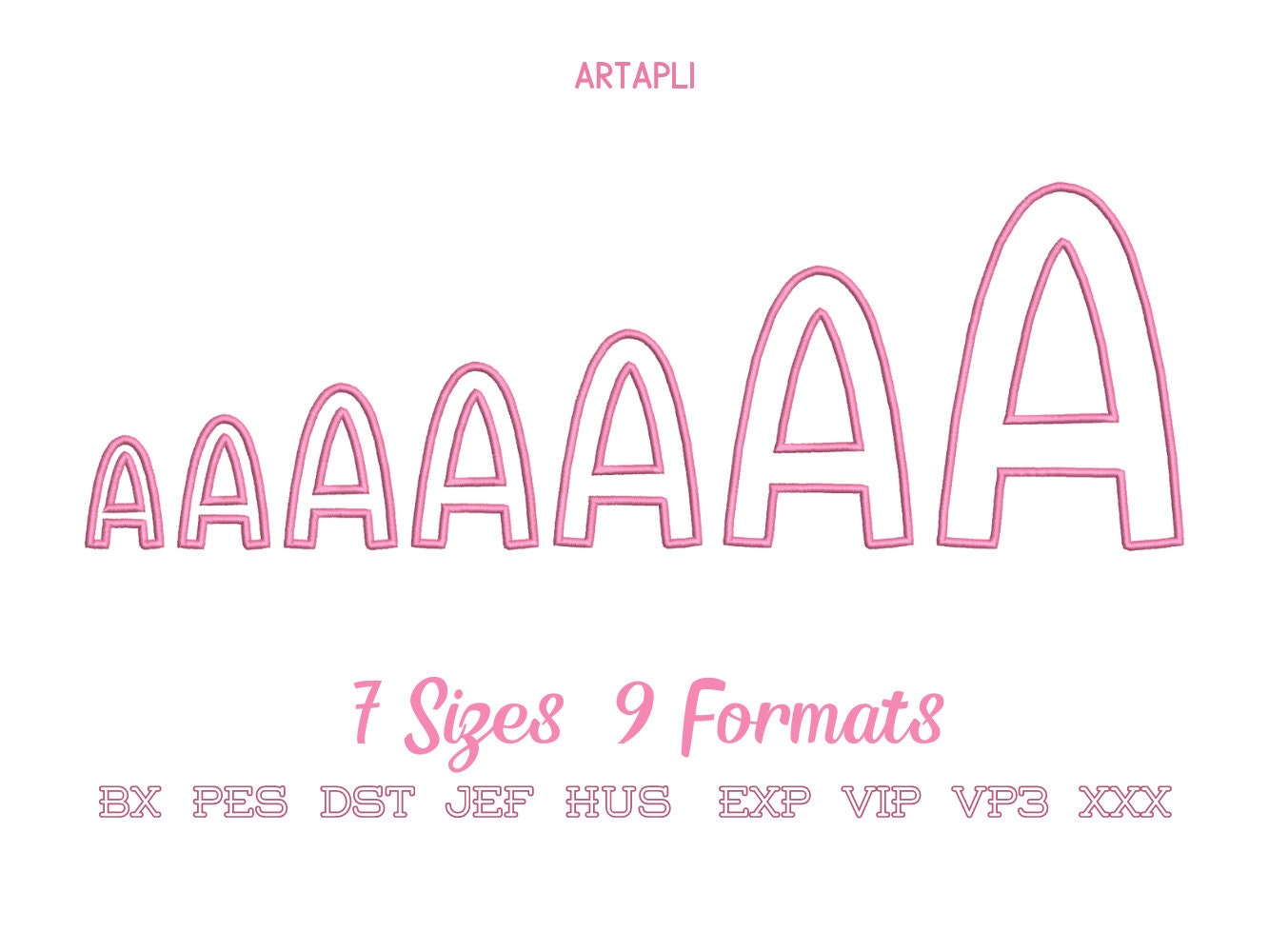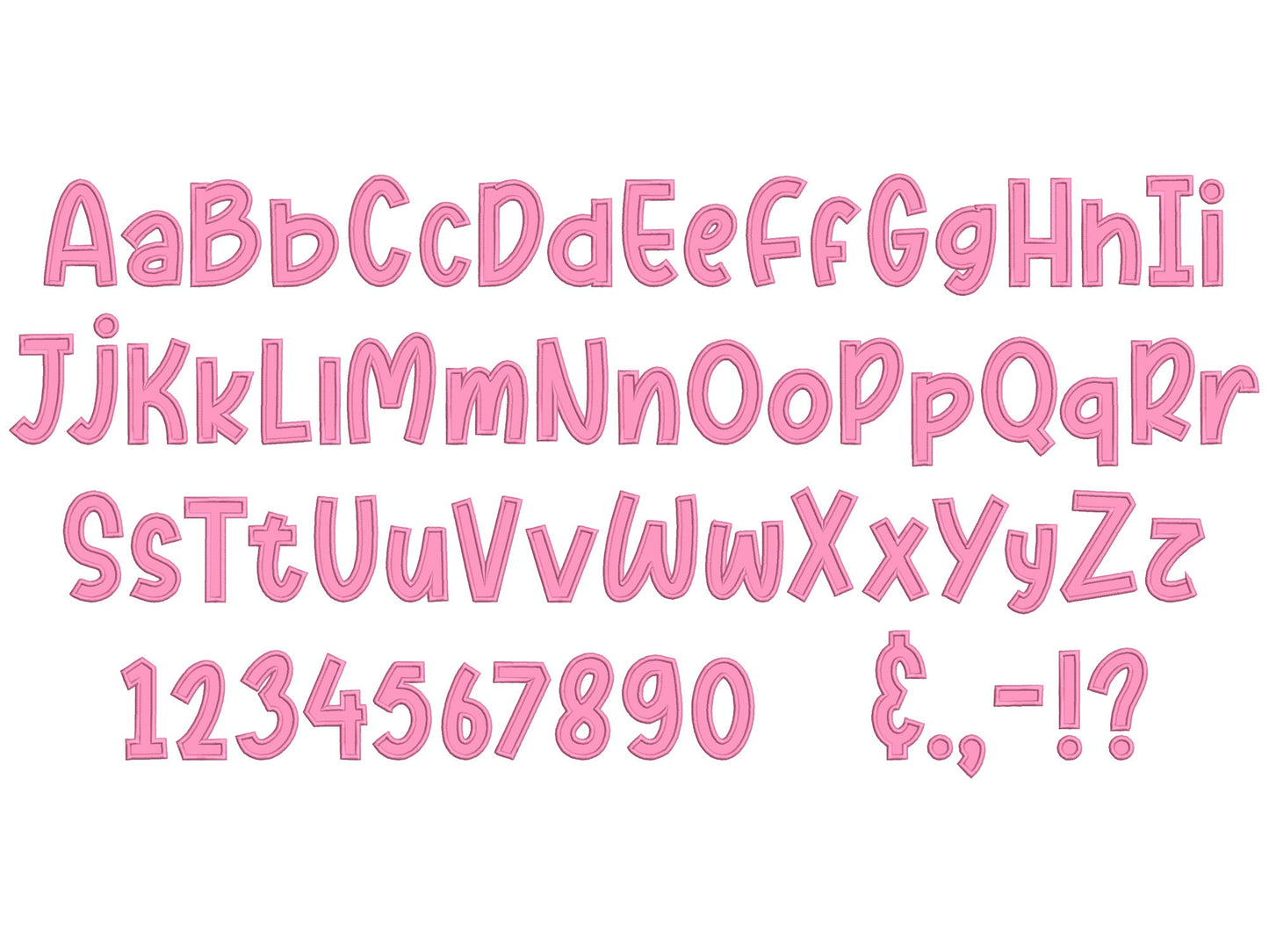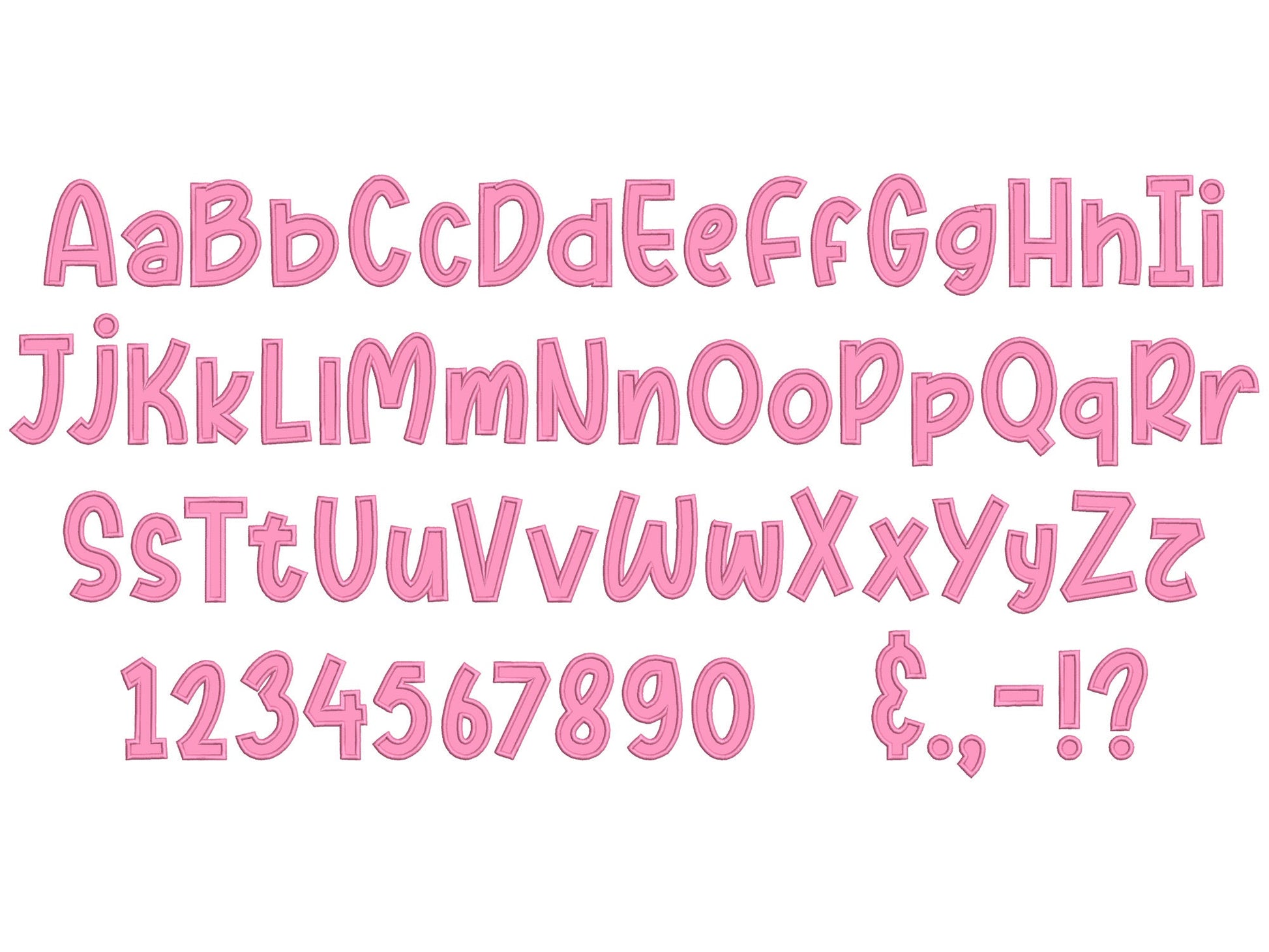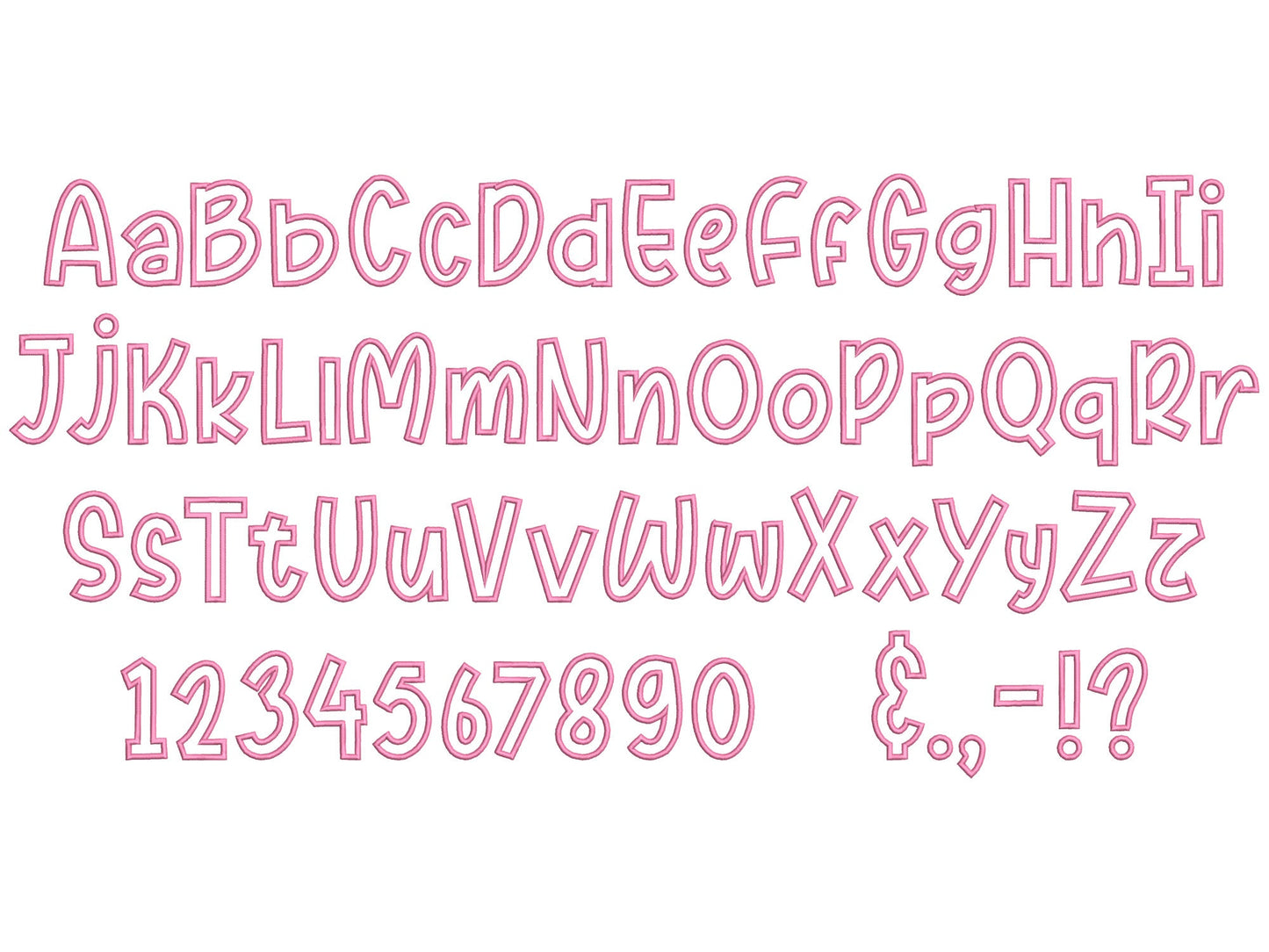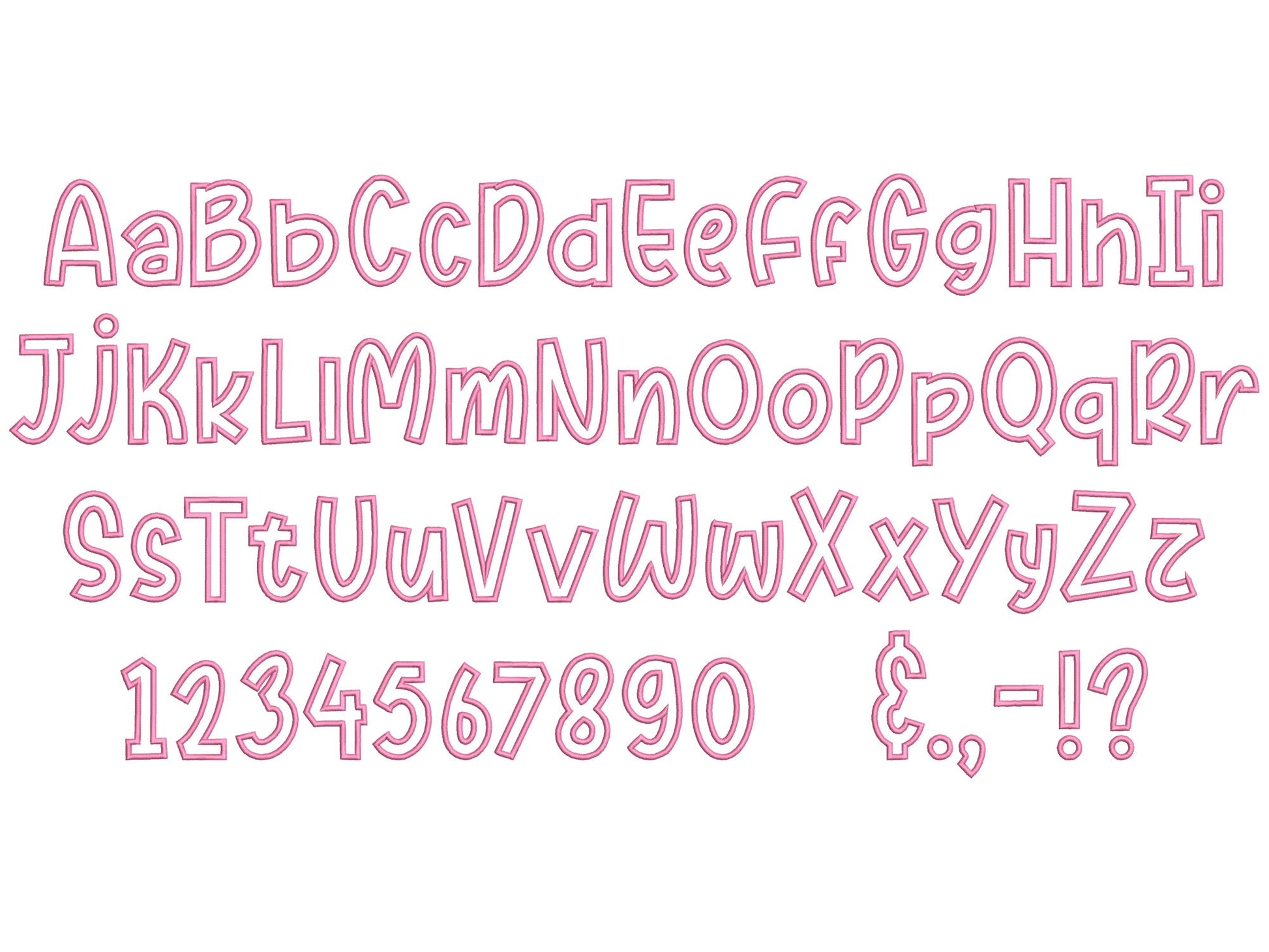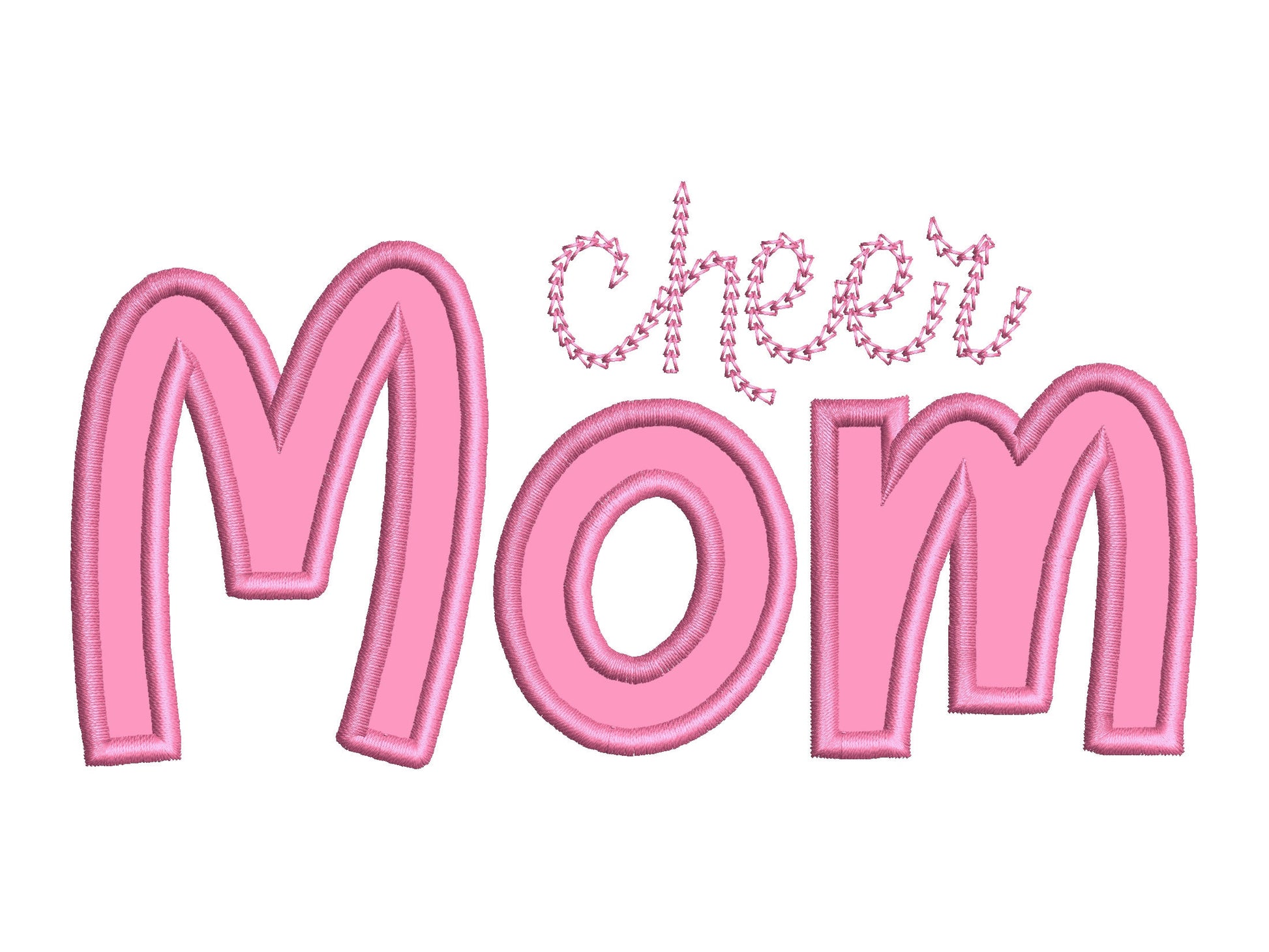
Baby Applique Font
Uppercase and lowercase letters, numbers 0 to 9 and punctuation, in seven sizes: 2, 2.5, 3, 3.5, 4, 5 and 6.5 inches. Stitched as applique, so big letters stay soft and quick.
- Baby applique font
- Uppercase and lowercase letters, numbers 0-9, punctuation
- 7 sizes, 2 to 6.5 in